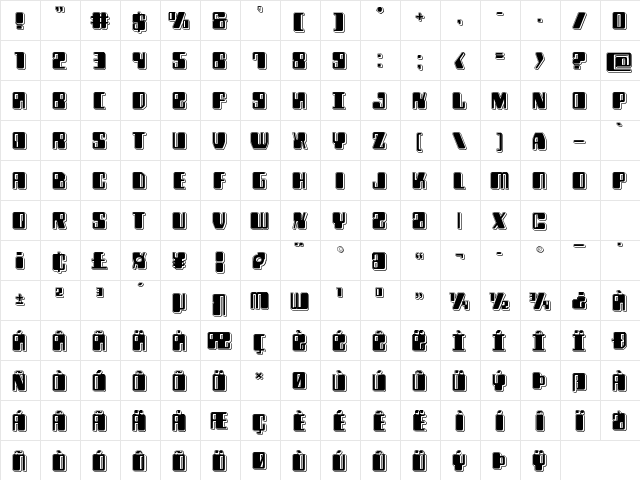
Zyborgs Punch Regular
Design Context for Zyborgs Punch
Zyborgs Punch is a composed and adaptable typeface that performs quietly and consistently across a wide range of design contexts.